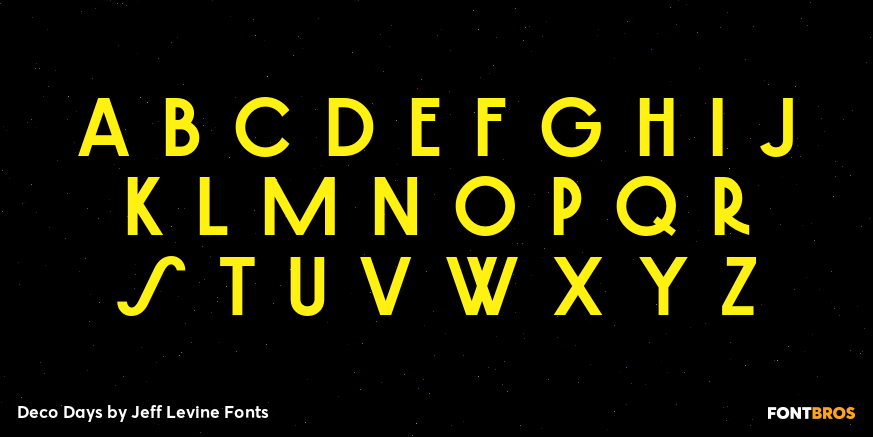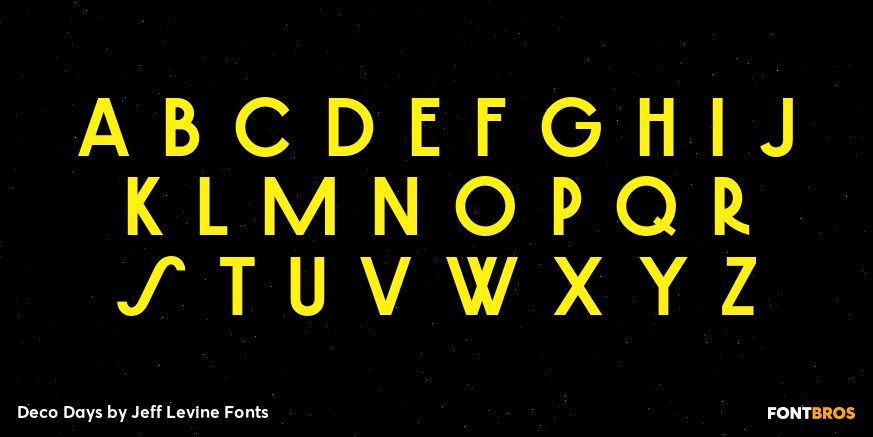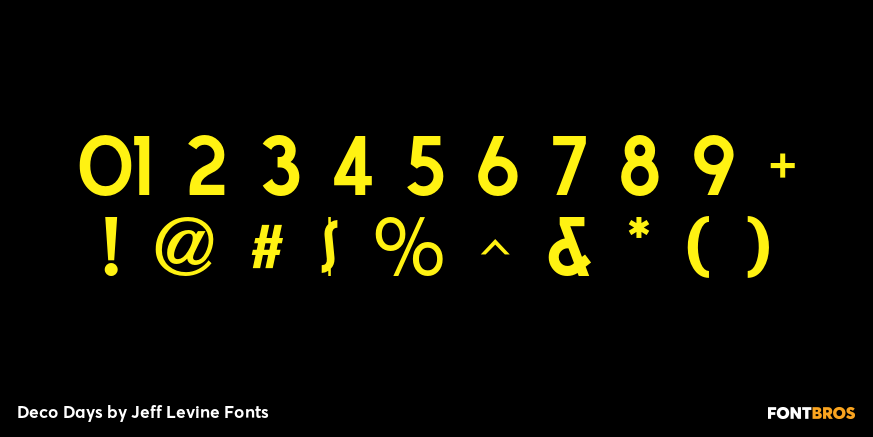
Deco Days
The hand lettered pre-Deco style title and songwriters' credits on the cover of the sheet music for 1929s 'The Love Parade” were the models for Deco Days JNL, which is available in both regular and oblique versions.